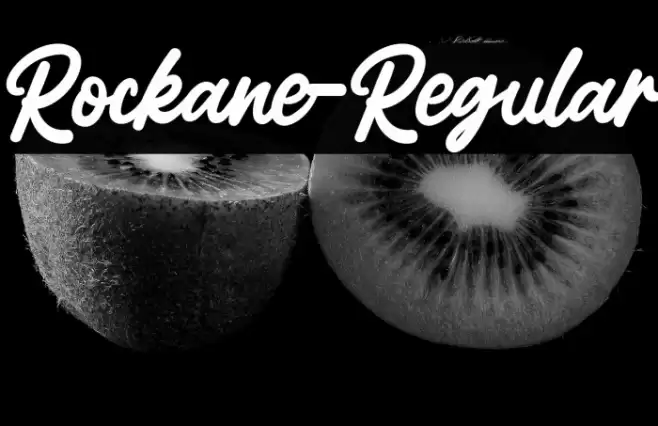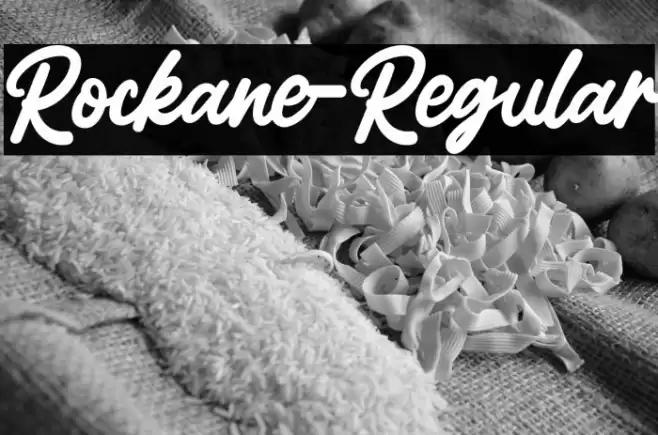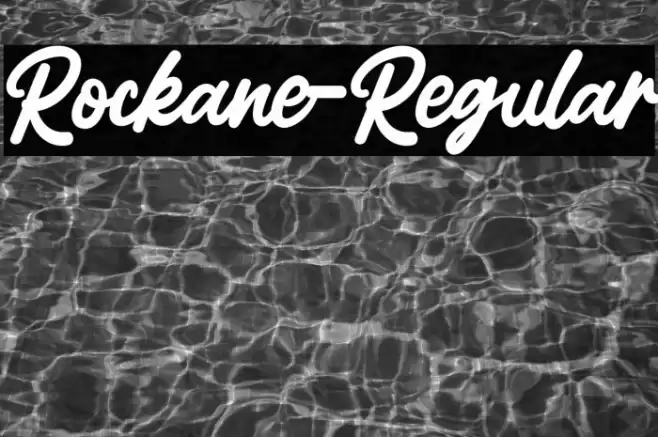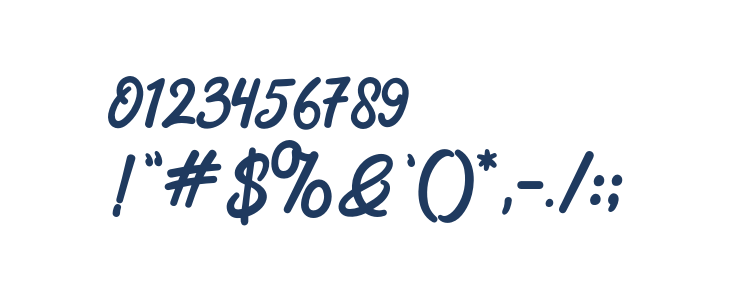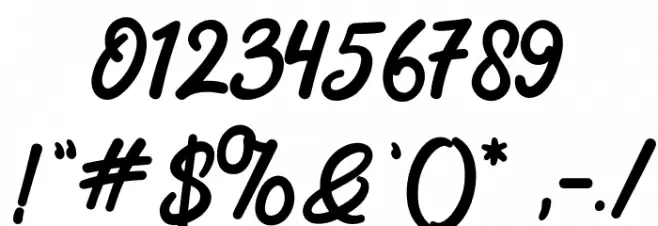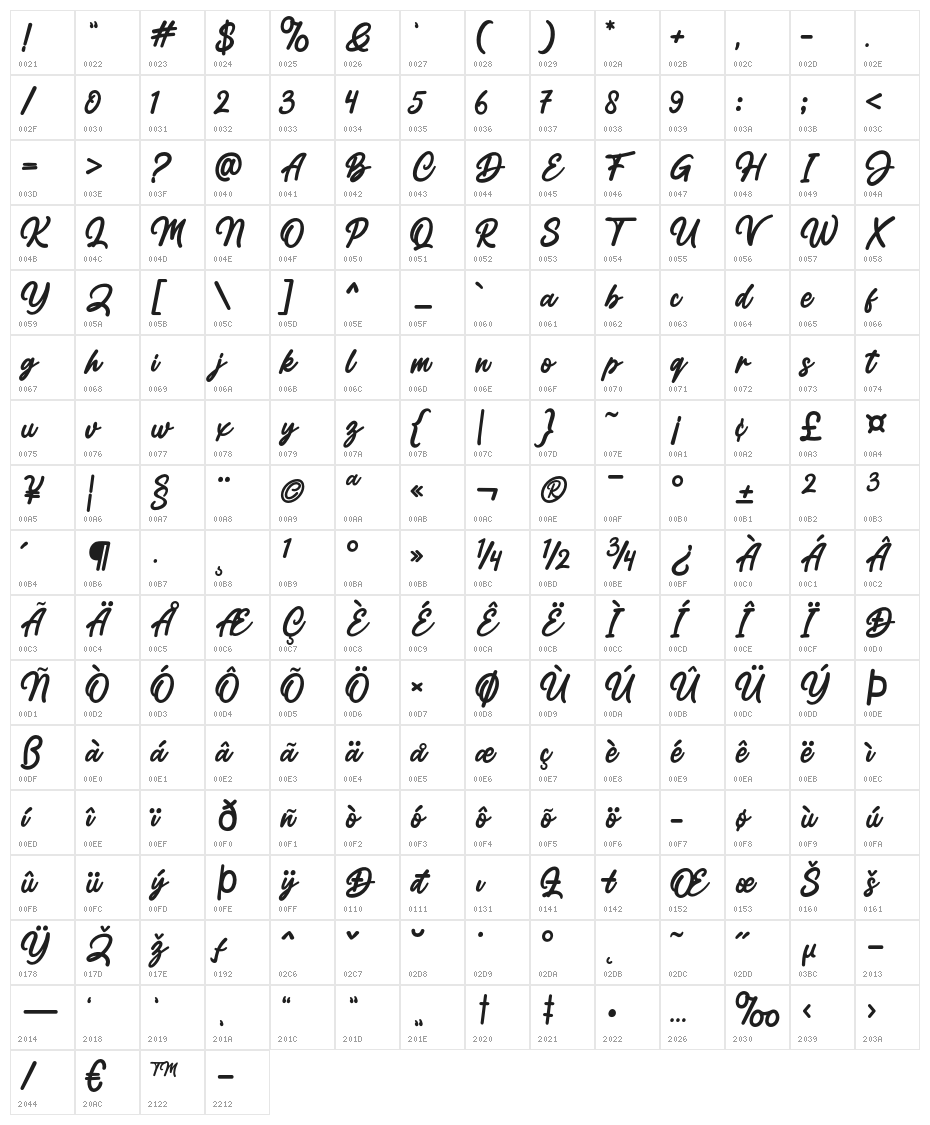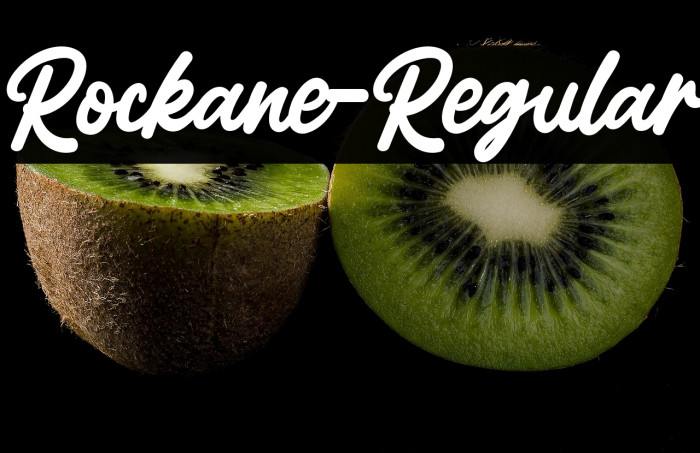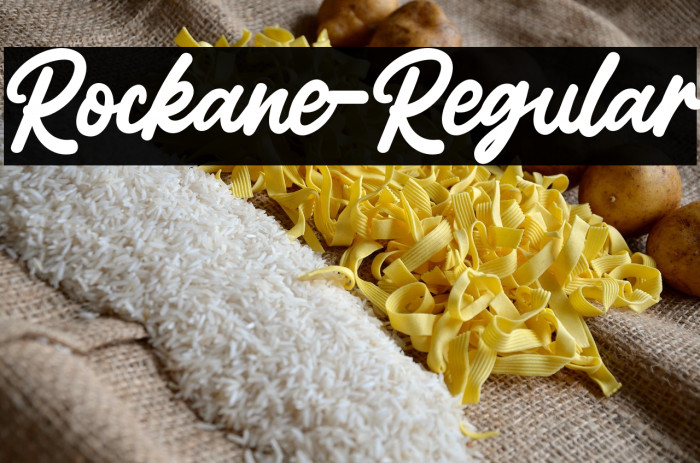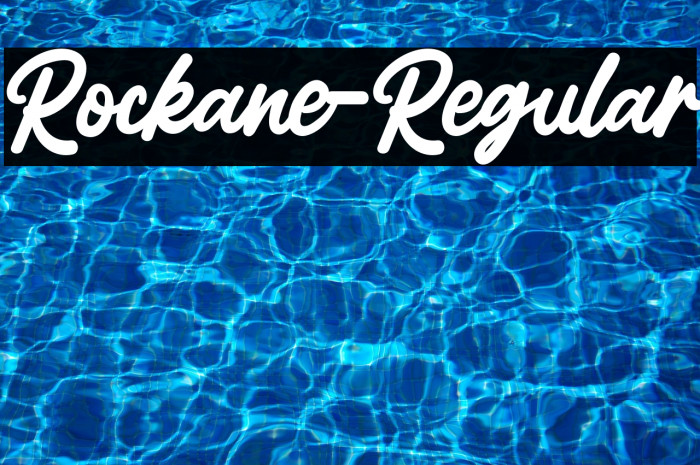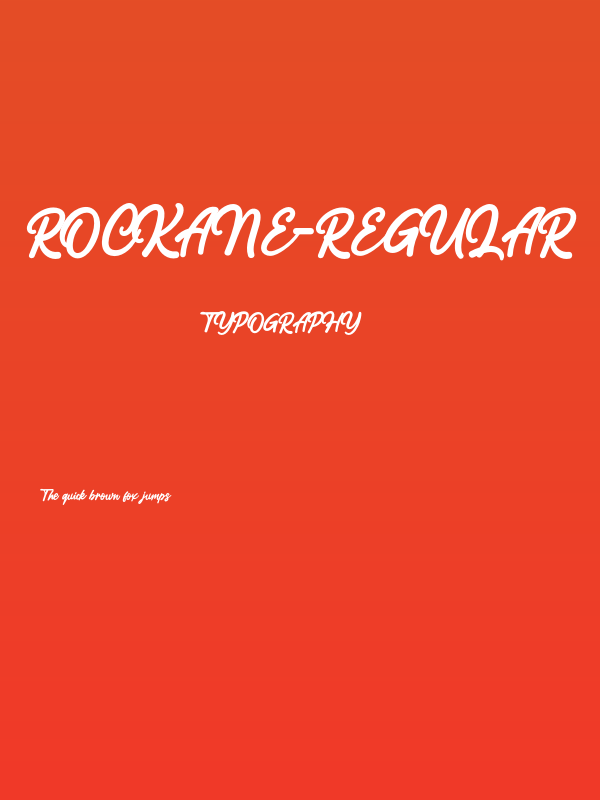
Rockane-Regular Font
Rockane-Regular Description
This font features a bold, flowing script style that exudes a sense of elegance and dynamism. The characters are interconnected, creating a seamless and continuous flow that is both visually appealing and easy to read. The uppercase letters are slightly larger and more pronounced, while the lowercase letters maintain a consistent height, adding to the overall balance of the design. The numerals and special characters are crafted with the same attention to detail, ensuring a cohesive look across all elements. This font is perfect for projects that require a touch of sophistication and flair.
A bold, flowing script font with interconnected characters and elegant style from Regular fonts.
- Proposed Projects: Ideal for wedding invitations, branding, logo design, and elegant packaging.
- Character Spacing: Tight
- Overall Style: Elegant
- Use Case: Logos, Invitations, Branding